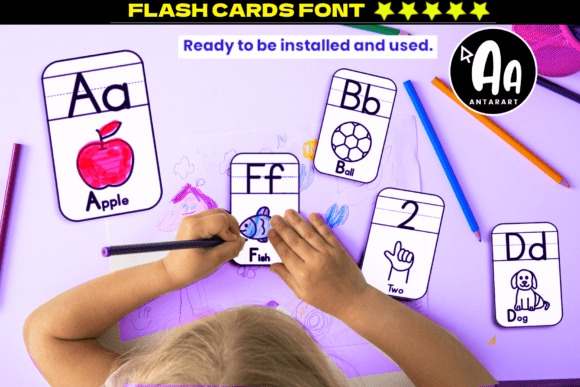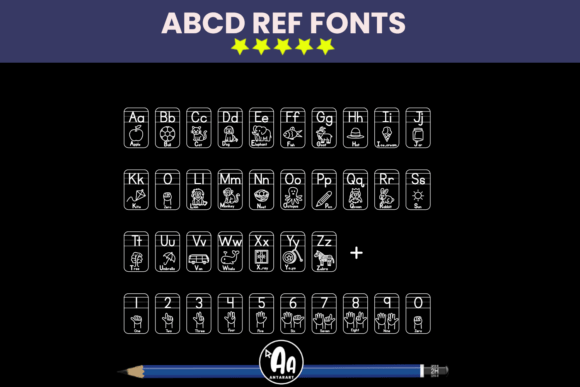
Introducing Abcd Ref Flash Cards Font: A Fun Learning Companion for Preschoolers and Kindergarteners
Are you a teacher, homeschooler, or parent looking for an engaging and interactive way to teach preschoolers and kindergarteners the alphabet, numbers, and basic learning skills? Look no further than the Abcd Ref Flash Cards Font, a comprehensive and modern educational tool designed to make learning fun and easy.
What is Abcd Ref Flash Cards Font?
The Abcd Ref Flash Cards Font is a unique and versatile font designed to help young learners develop essential skills in a playful and interactive way. This font features alphabet letters, numbers, and adorable illustrations that are perfect for creating engaging flashcards, posters, bulletin boards, and other educational materials.
Key Features of Abcd Ref Flash Cards Font
• Alphabet and Numbers: The font includes both uppercase and lowercase letters (A-Z) and numbers 0-9, making it an excellent resource for teaching young learners the basics of reading and writing.
• D’Nealian Handwriting Method: Based on the D’Nealian handwriting method, this font helps children develop good handwriting habits from an early age.
• Interactive and Engaging: The font features adorable illustrations and colorful designs that make learning fun and interactive.
• Modern and Harmonious Design: The font’s modern and harmonious design makes it perfect for classroom decoration, including posters, bulletin boards, and kids’ learning corners.
Benefits for Preschoolers and Kindergarteners
The Abcd Ref Flash Cards Font offers numerous benefits for preschoolers and kindergarteners, including:
• Improved Literacy Skills: The font helps young learners develop essential literacy skills, including alphabet recognition, phonics, and basic reading skills.
• Enhanced Cognitive Development: The interactive and engaging nature of the font helps children develop critical thinking skills, problem-solving, and creativity.
• Boosts Confidence: The font’s fun and colorful design helps build confidence and motivation in young learners, making learning a positive and enjoyable experience.
Benefits for Teachers and Homeschoolers
The Abcd Ref Flash Cards Font is also an excellent resource for teachers and homeschoolers, offering:
• Time-Saving: The font saves time and effort in creating educational materials, allowing teachers and homeschoolers to focus on teaching and guiding their students.
• Customization: The font’s versatility allows teachers and homeschoolers to create customized educational materials that cater to their students’ needs.
• Cost-Effective: The font is a cost-effective solution for creating high-quality educational materials, reducing the need for expensive textbooks and resources.
Using Abcd Ref Flash Cards Font for Design and Crafting
The Abcd Ref Flash Cards Font is not only an excellent educational tool but also a versatile design resource for crafters and designers. You can use the font to create:
• Flashcards: Create customized flashcards for alphabet, numbers, and basic learning skills.
• Posters and Charts: Design engaging posters and charts for classroom decoration or homeschooling materials.
• Bulletin Boards: Create interactive bulletin boards that showcase students’ work and learning progress.
• Learning Corners: Design a dedicated learning corner for kids with alphabet charts, number lines, and other educational materials.
Font Name Abcd Ref Flash Cards  Font
The Abcd Ref Flash Cards Font is an excellent resource for preschoolers, kindergarteners, teachers, and homeschoolers. Its interactive and engaging design makes learning fun and easy, while its versatility and customization options make it a valuable tool for designers and crafters. With its modern and harmonious design, this font is sure to become a must-have tool for creating educational materials and decorative resources for kids.